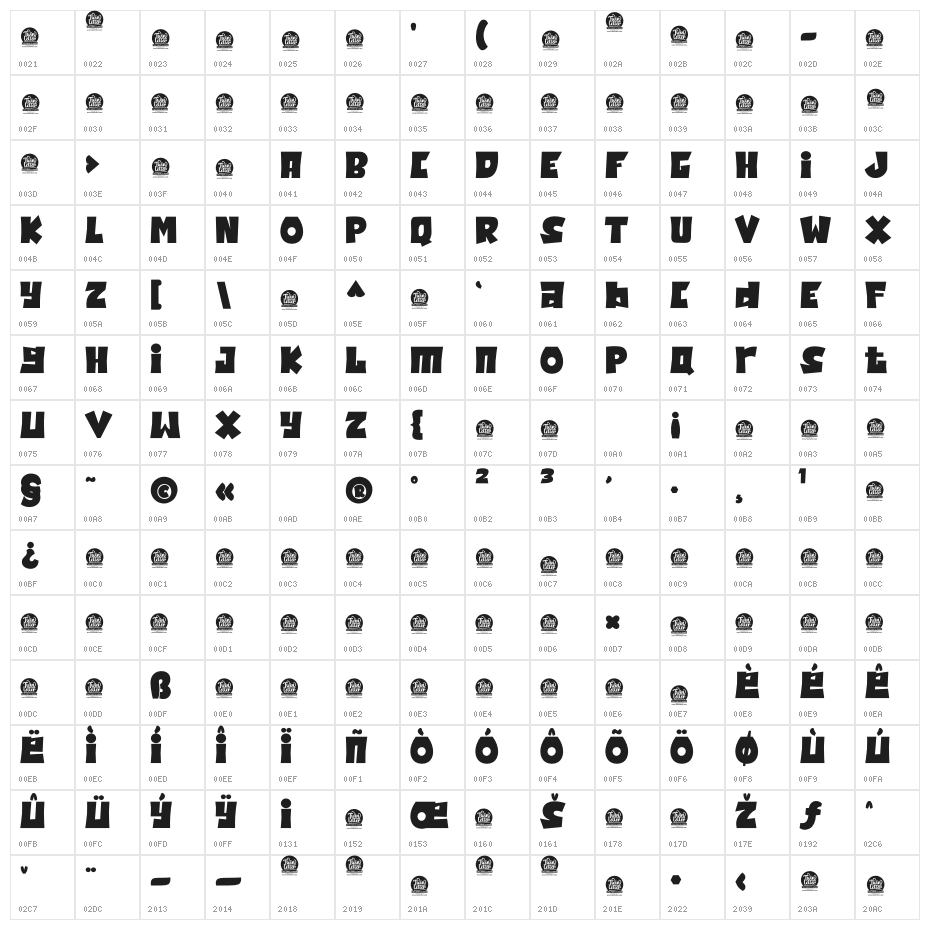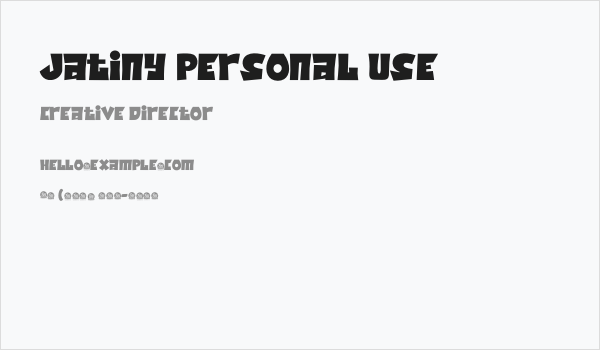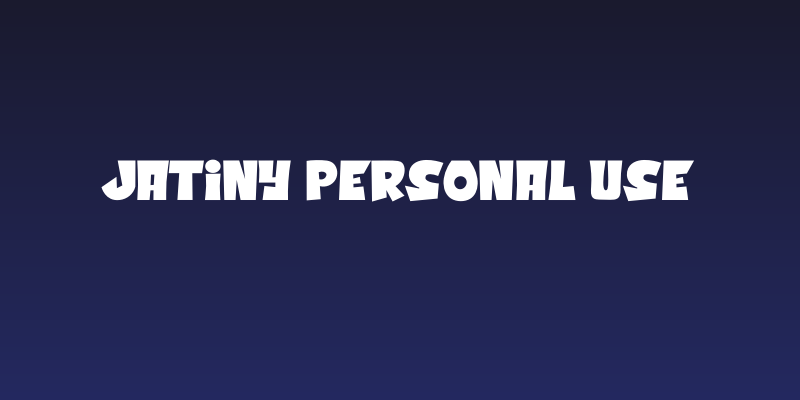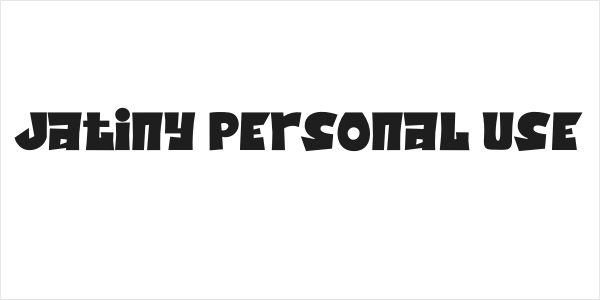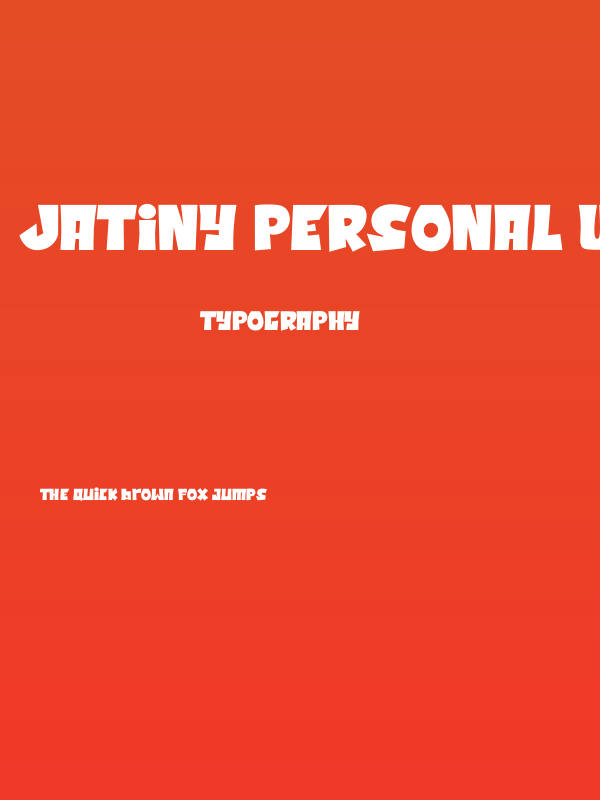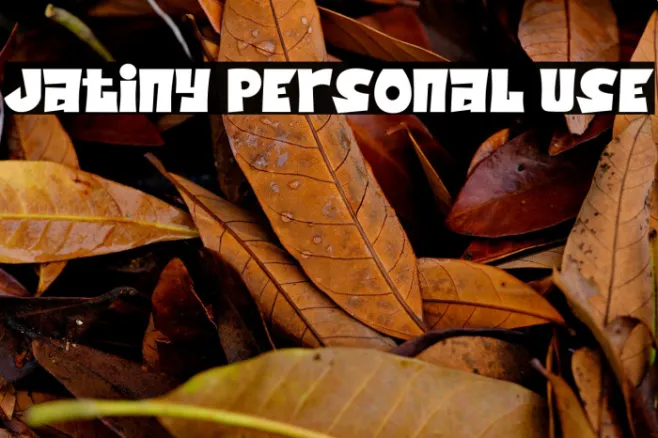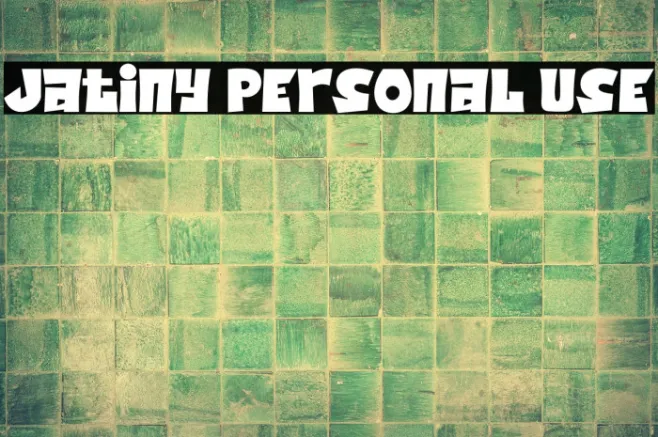
Jatiny Personal Use Font
Jatiny Personal Use Description
This font features a bold and dynamic style with a strong presence. The characters are designed with a blocky and angular aesthetic, giving them a unique and eye-catching appearance. The uppercase and lowercase letters share a consistent geometric structure, while the numbers and special characters maintain the same boldness and angularity. This font is ideal for projects that require a striking and modern look, making it suitable for headlines, posters, and branding materials.
| Proposed Projects | Ideal for use in branding, posters, headlines, and any design requiring a bold, modern touch. |